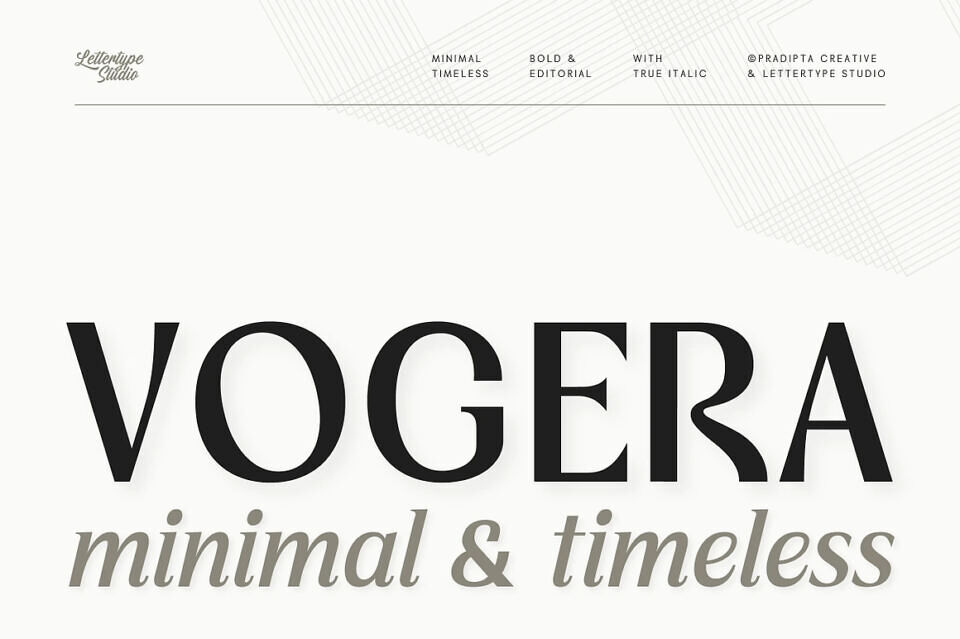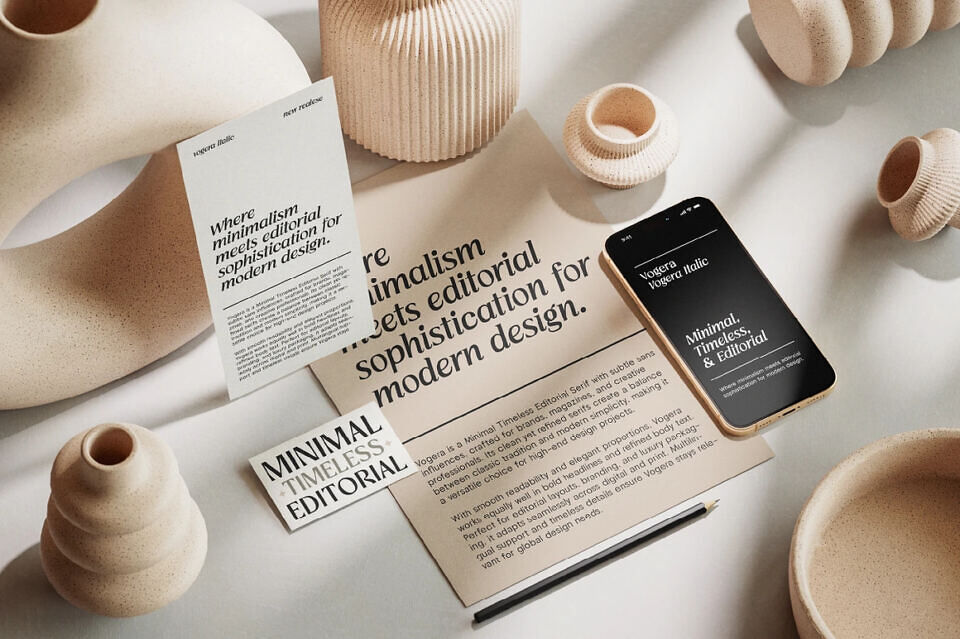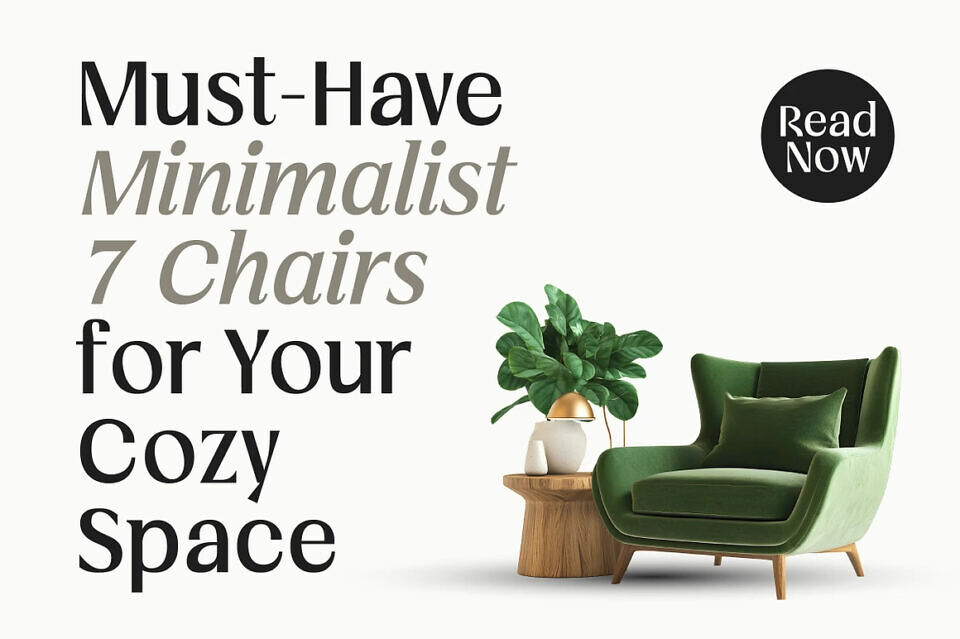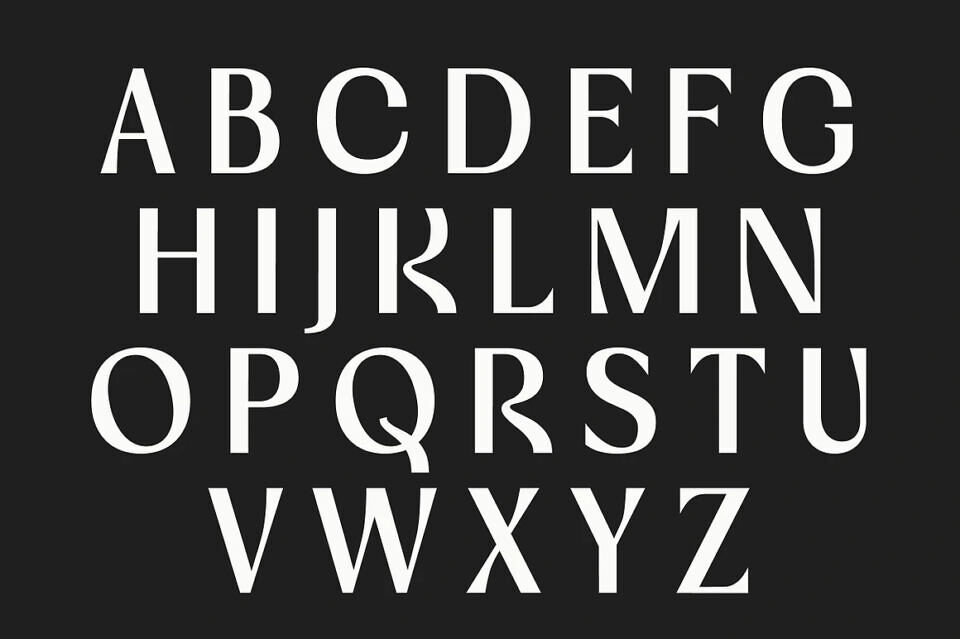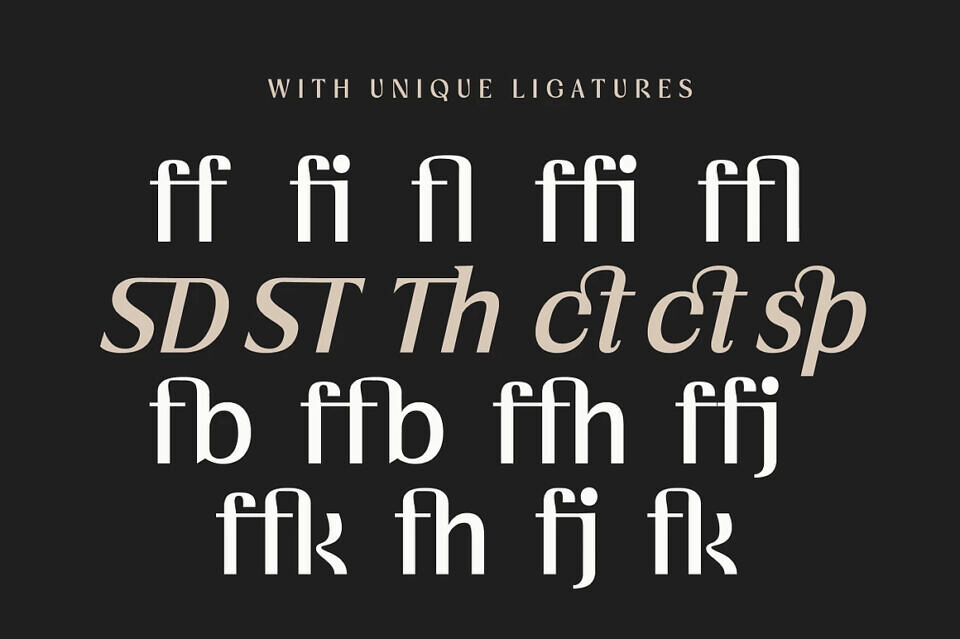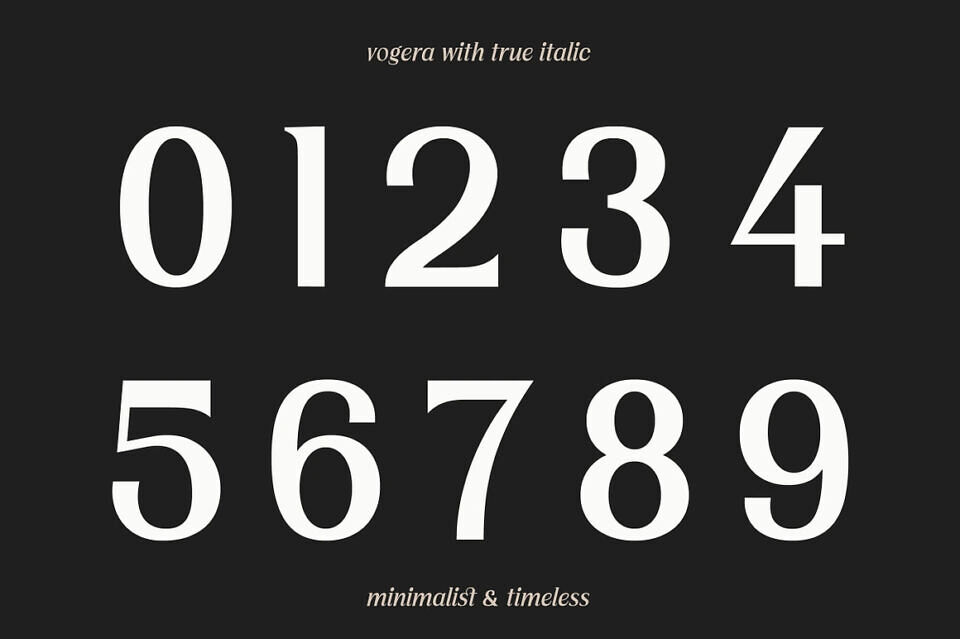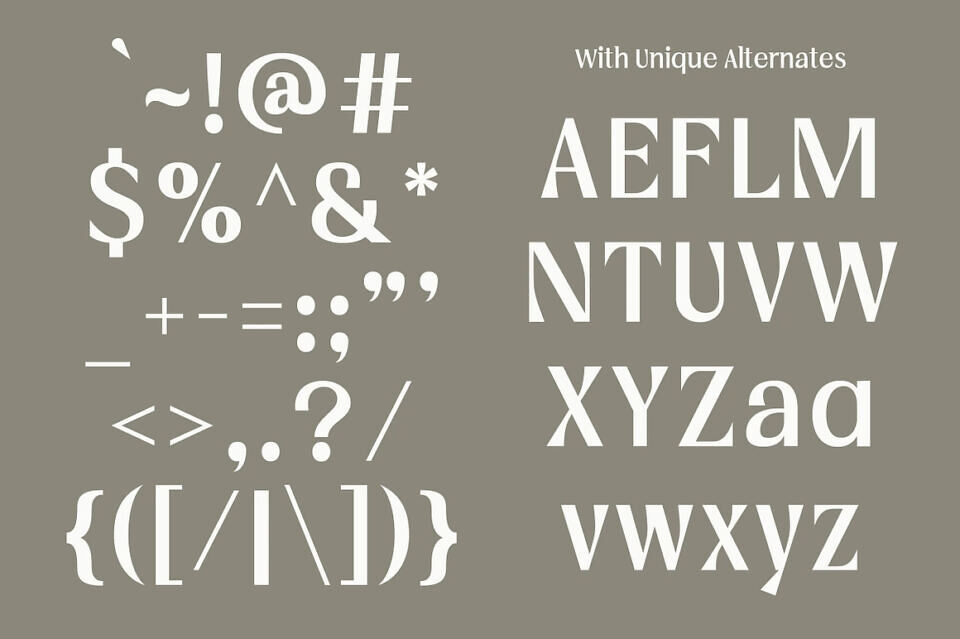
Vogera Font
Discover Vogera, a timeless editorial serif font designed for modern branding and creative projects. With subtle sans-serif influences, its refined letterforms blend tradition and modernity perfectly. This makes Vogera ideal for high-end fashion campaigns, magazines, and identities.
Featuring 20 unique alternates and 14 ligatures, it offers exceptional versatility for distinctive logotypes and headlines. Vogera provides seamless readability across digital and print, elevating your design with sophistication and clarity.